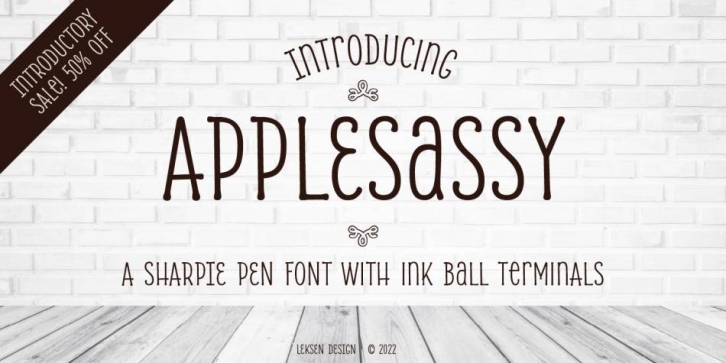
Publisher: Leksen Design
Designed by Andrea Leksen, Applesassy is a hand display font family published by Leksen Design.
Applesassy is a font created from Sharpie pen writing, featuring ink ball terminals! The lowercase letters are a mix of capital and lowercase letters that share the same cap height and baseline. There are several alternate characters with a mix of high and low crossbars as well as crossbar overhang options and language support for each. Custom ornaments include ink dots, floral swashes and sharpie lines that will sass up any design! This display font will work great for signage, book covers, large titles in marketing materials and logos. Enjoy!